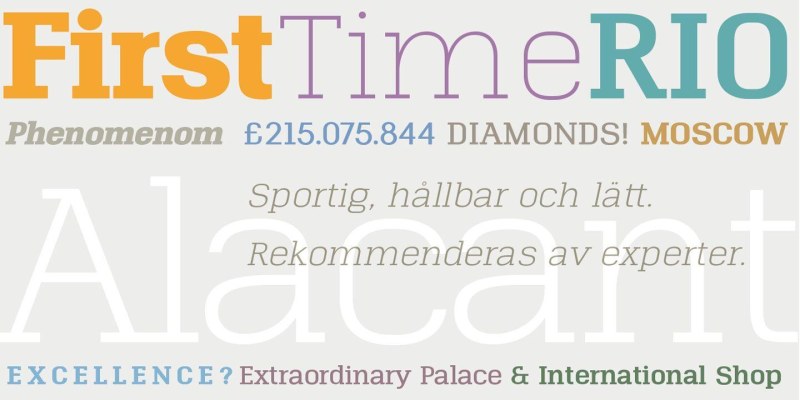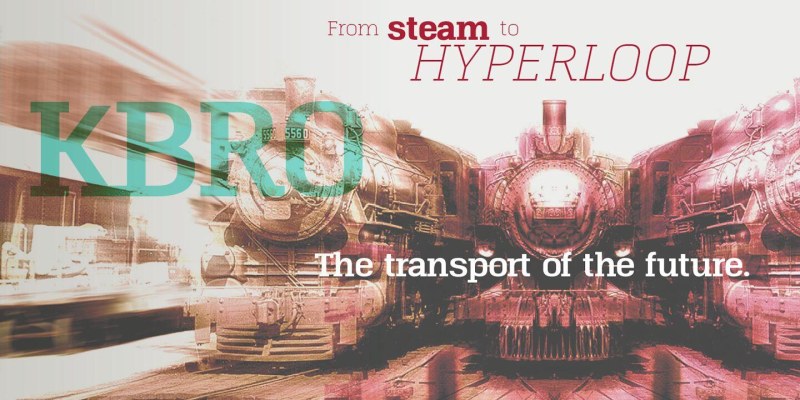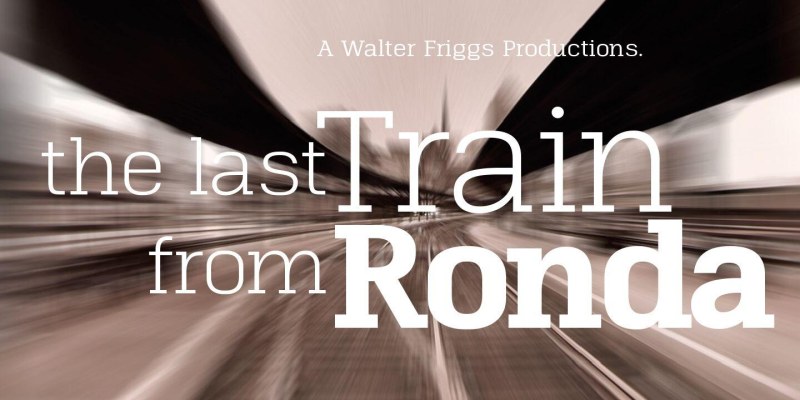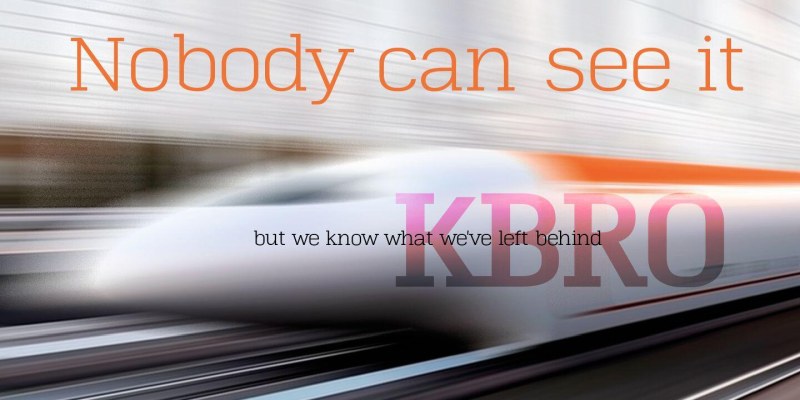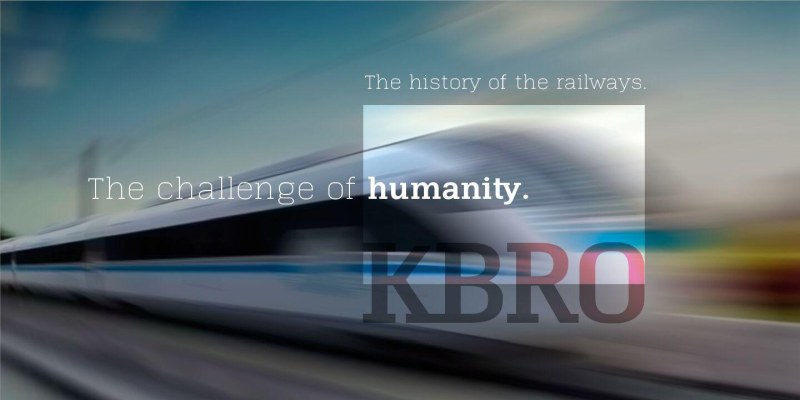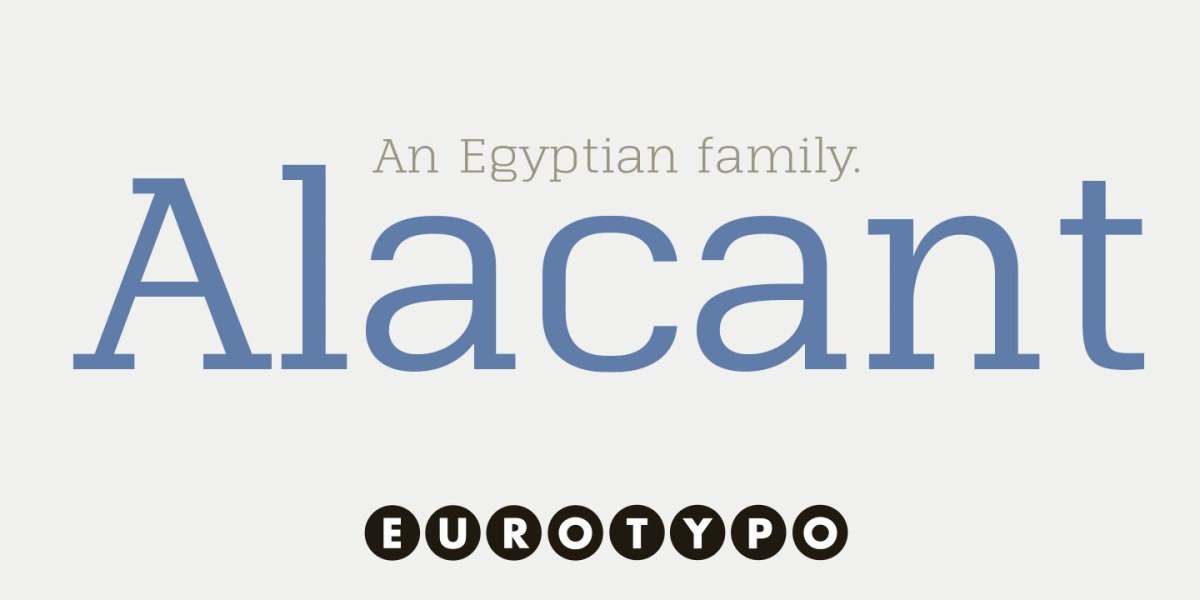
Alacant Font Family
Alacant is a family of slab serif fonts comprising seven weights and their versions in italics. One of the most characteristic advantages of this font is its particularly square shape, very short descenders, open counter-forms and precise kerning that provides an excellent visual impact and clear legibility.
Where Alacant Font Family works best
Sports & outdoor brands
Slab serifs like Alacant Font Family feel sturdy and confident — perfect for athletic, outdoor and automotive branding.
Editorial headlines
Strong slabs anchor magazine headlines and blog titles.
Packaging
Coffee, craft beer and hardware packaging often lean on slab serifs for a trustworthy look.
What is Alacant Font Family good for?